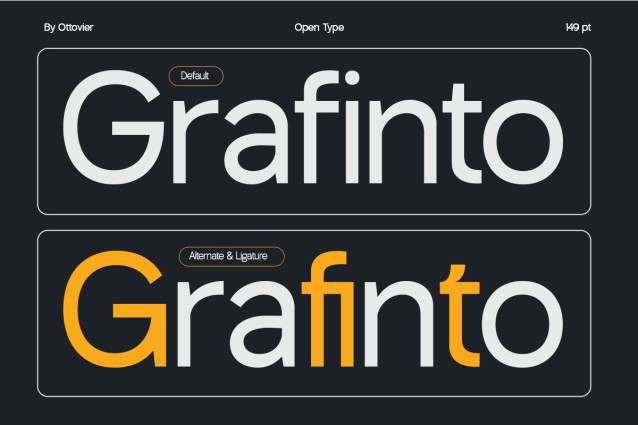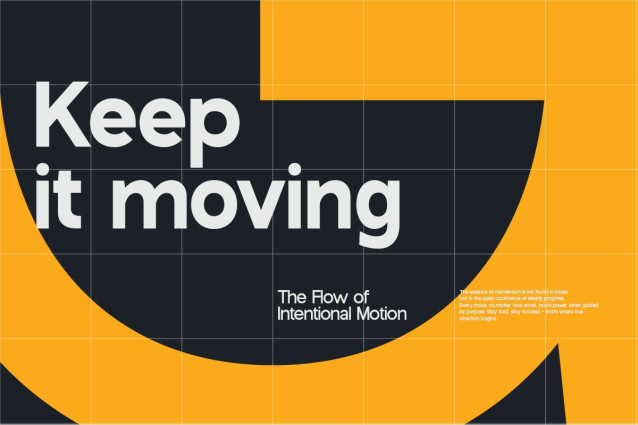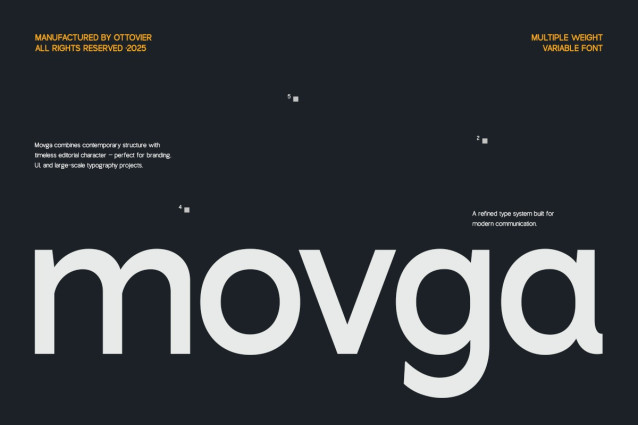
TG movga Font
TG movga Font is a contemporary sans serif typeface designed to blend editorial elegance with digital precision. Built with clean geometry, balanced proportions, and refined details, Movga delivers strong visual clarity while maintaining a timeless aesthetic.
Created for modern creative workflows, Movga performs beautifully across multiple platforms — from branding systems and UI design to large-scale typography and print publications. Its versatile structure makes it ideal for designers who need consistency, flexibility, and impact in one type family.